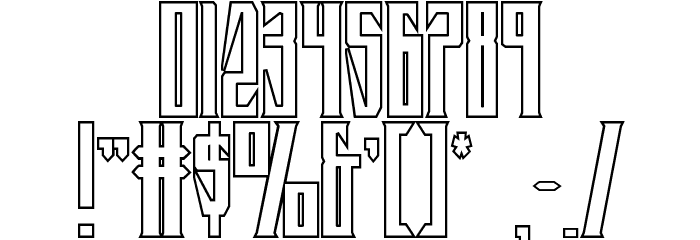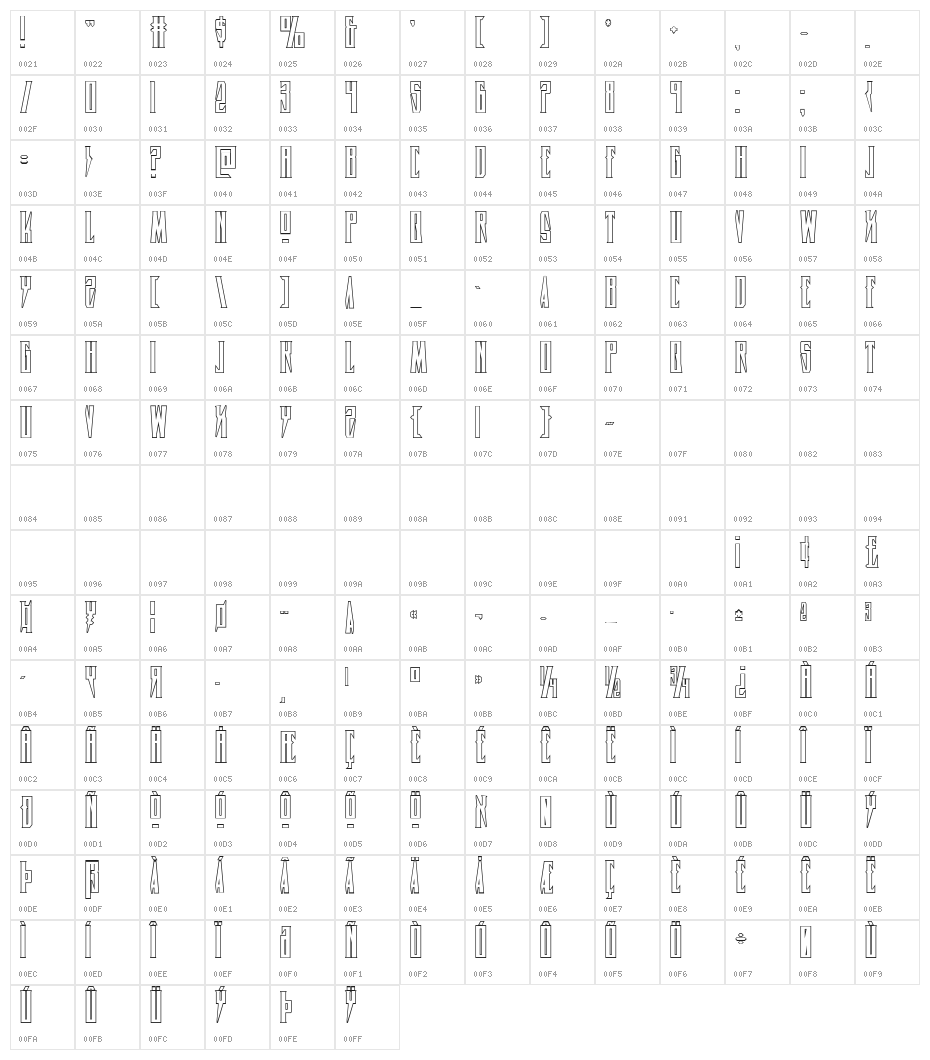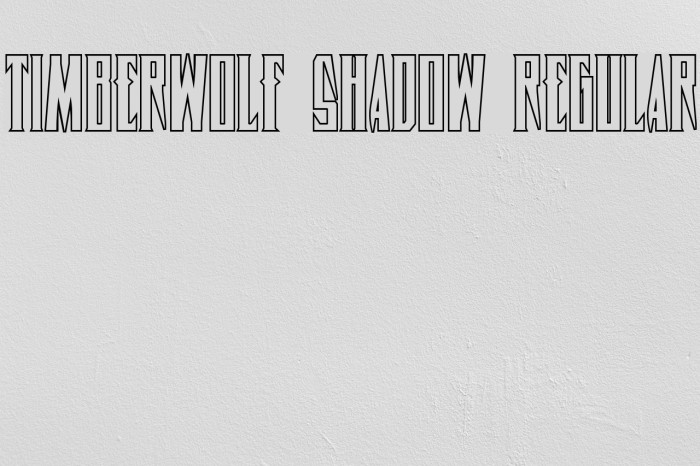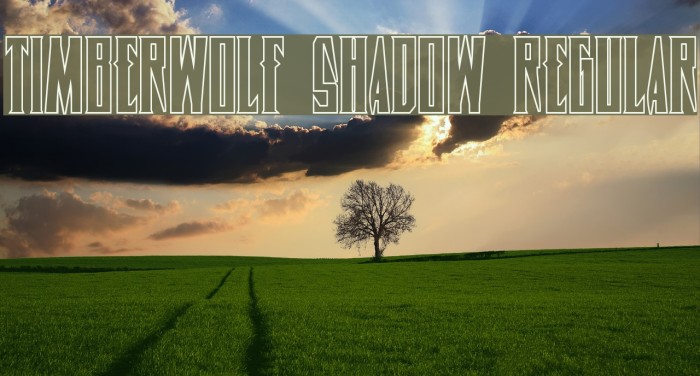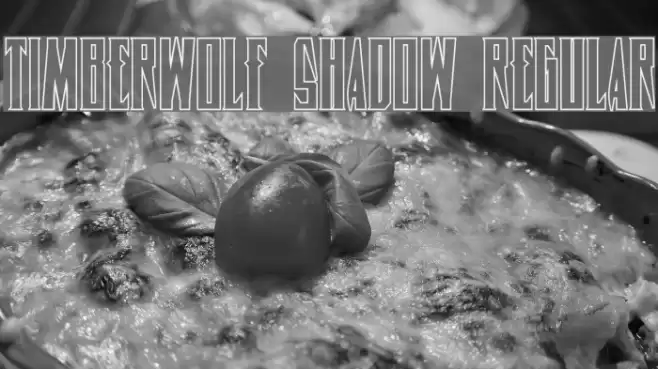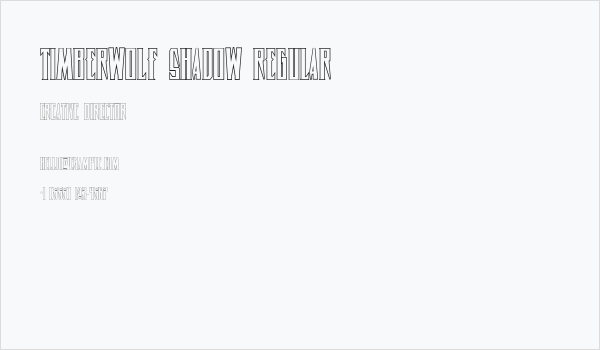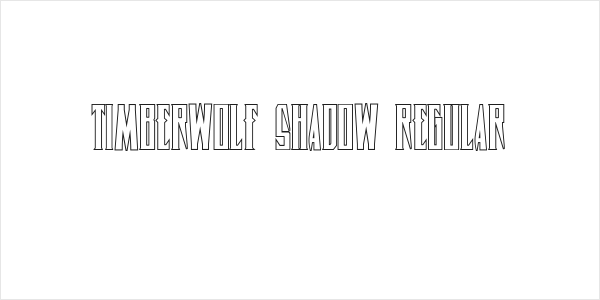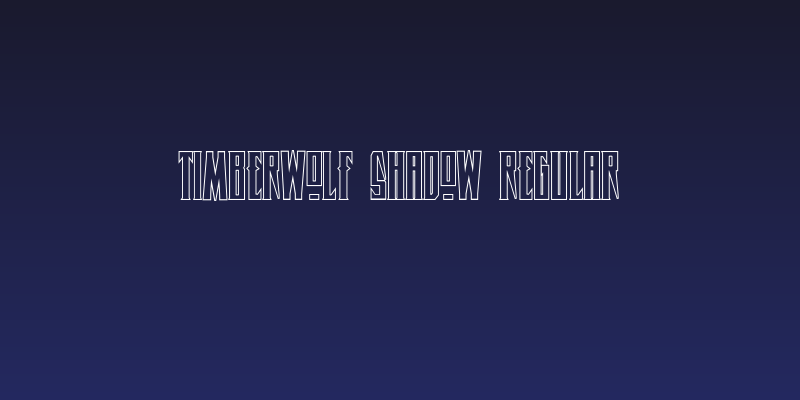
Timberwolf Shadow Regular Font
Timberwolf Shadow Regular Description
This font features a bold and striking design with a shadow effect that adds depth and dimension to each character. The letters are tall and narrow, with sharp, angular edges that create a sense of movement and energy. The uppercase and lowercase letters maintain a consistent style, while the numbers and special characters complement the overall aesthetic. This font's unique appearance makes it ideal for projects that require a strong visual impact.